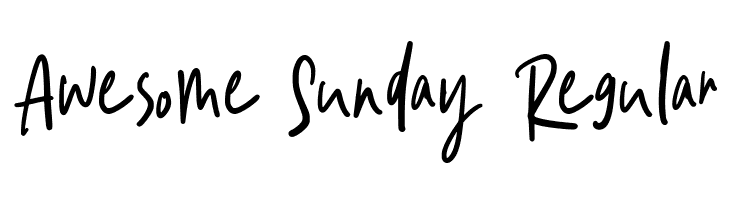
A playful and casual handwritten font with fluid strokes and a friendly appearance.
A playful, handwritten font with smooth, flowing lines and a casual style.
A playful, bold handwritten font with rounded, consistent strokes.
A playful, bold handwritten font with rounded edges and a casual style.
A playful, handwritten font with fluid strokes and a casual, energetic style.
A playful, handwritten font with flowing, connected letterforms and a casual, whimsical style.
A playful, handwritten font with bold, flowing strokes and a dynamic slant.
A playful, casual handwritten font with fluid, slightly irregular strokes.